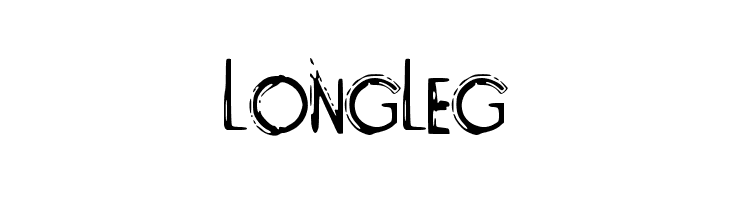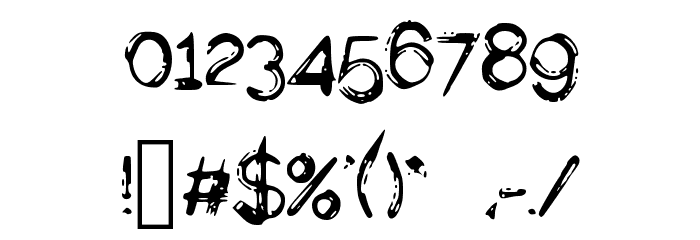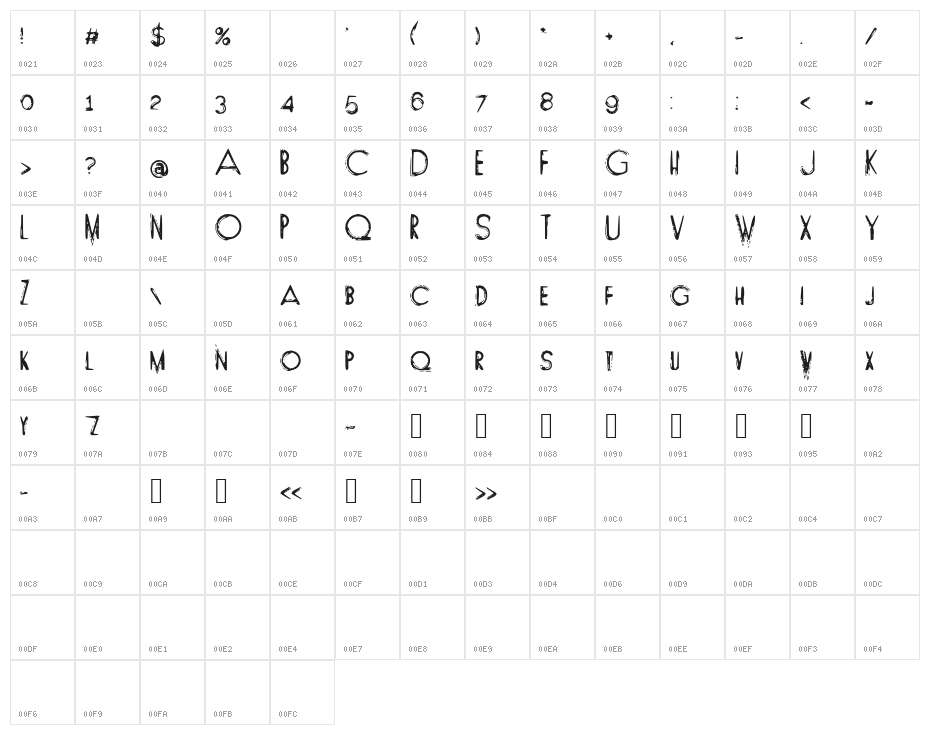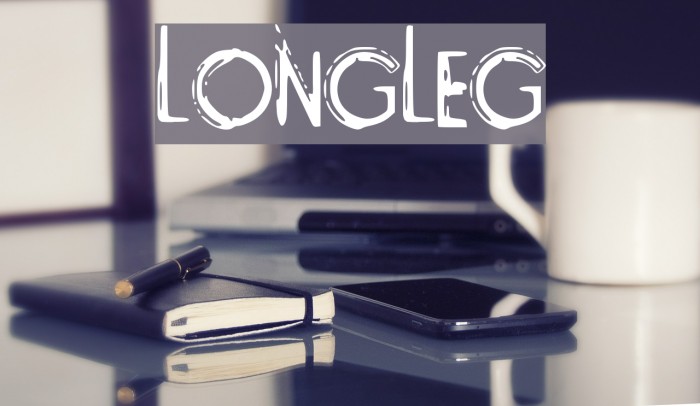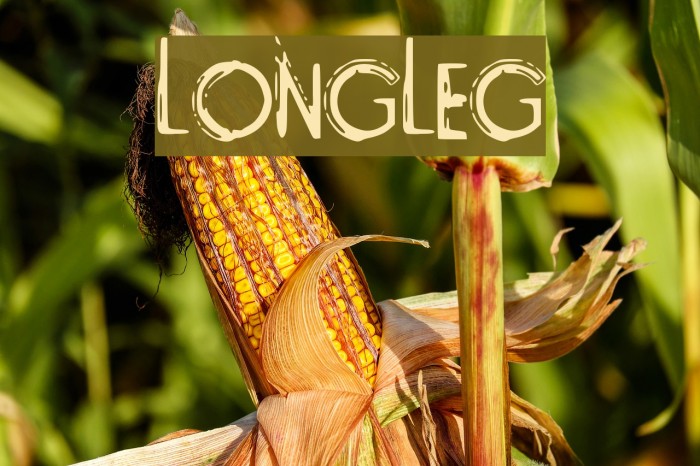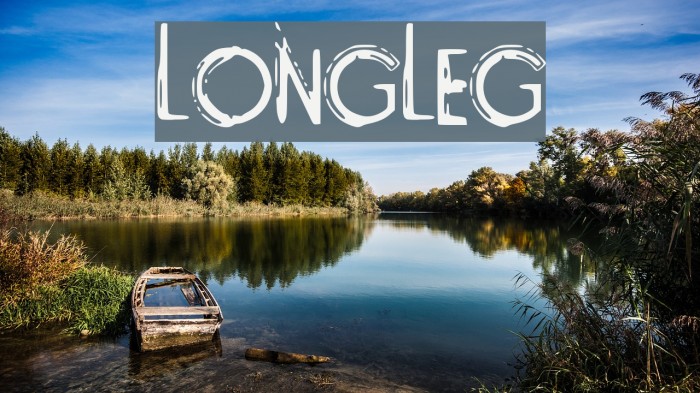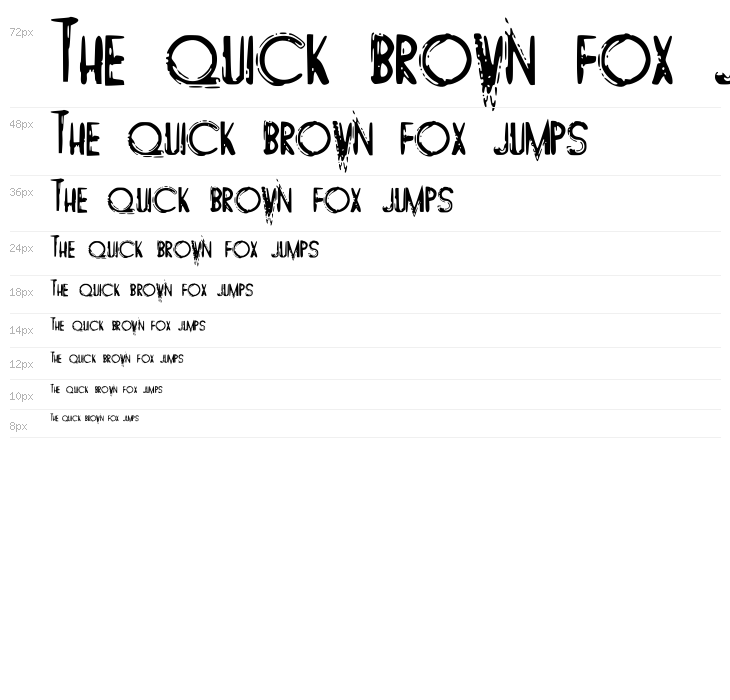
LongLeg Font
LongLeg Description
This font features a bold and distressed style, with each character exhibiting a rough, textured appearance that gives it a grunge or urban feel. The uppercase and lowercase letters maintain a consistent height, while the numbers and special characters follow the same rugged design. The strokes are uneven, adding to the chaotic and edgy aesthetic. This font is ideal for projects that require a strong, impactful look, such as posters, album covers, or any design that aims to convey a sense of rebellion or nonconformity.
| Overall Style | Grunge, Urban, Edgy |
| Proposed Projects | Ideal for posters, album covers, streetwear branding, and rebellious-themed designs. |